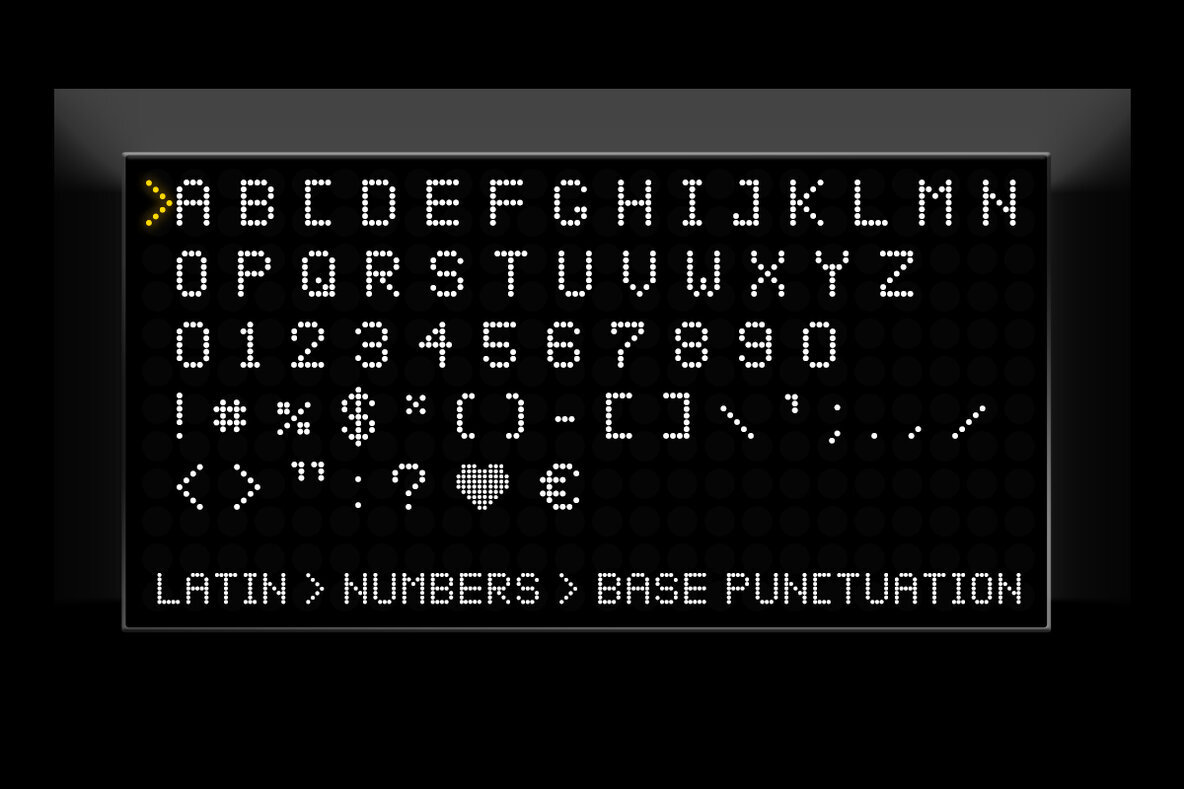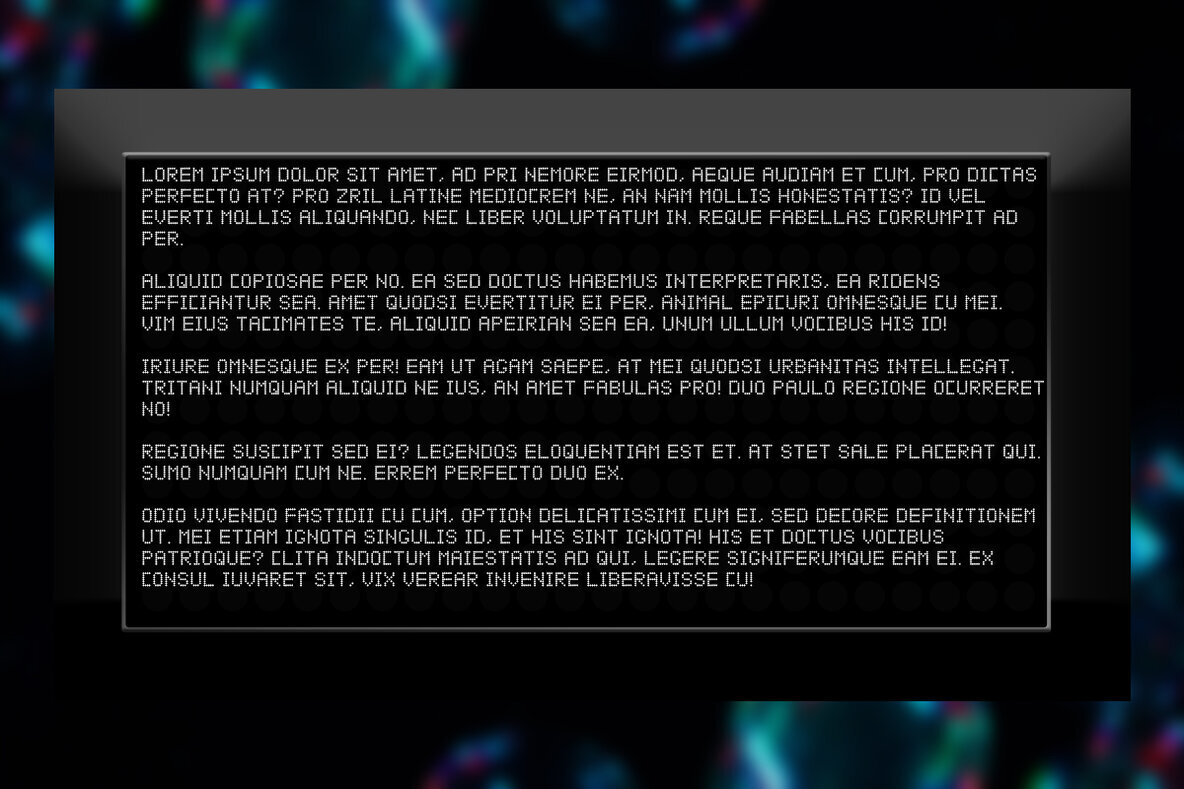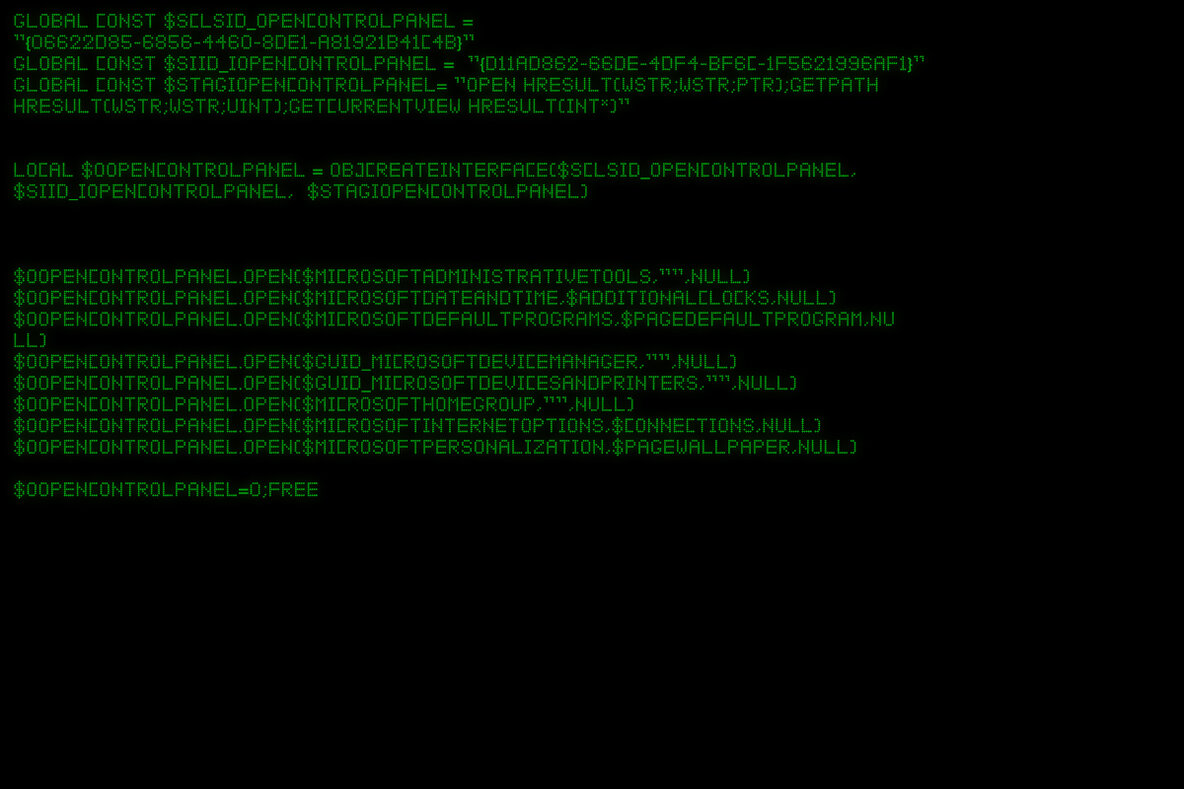
Led Screen Font
LED SCREEN
Introducing Led Screen, a font inspired by the crispness and accuracy of LED displays. Its sharp lines and bold presence make Led Screen an ideal choice for digital displays and branding. Experience Led Screen today and create a powerful statement with your design projects.